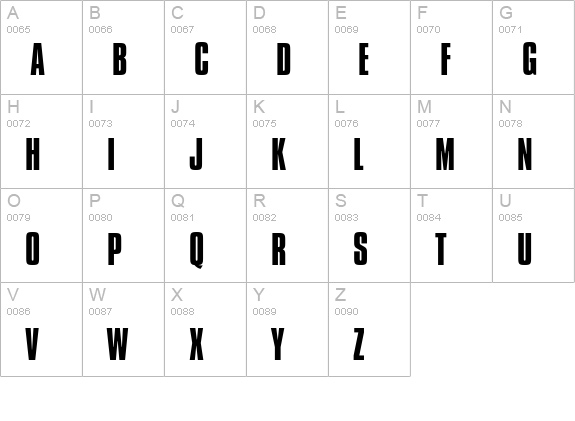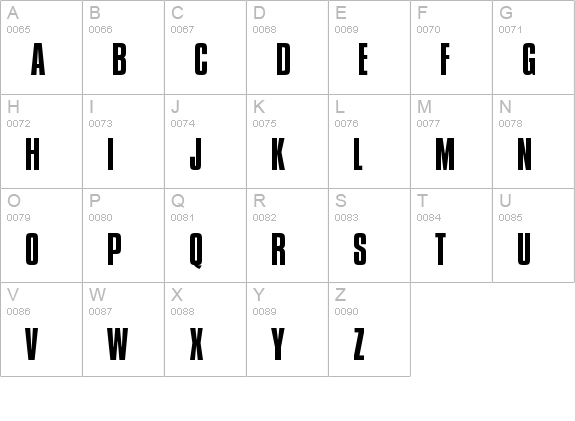
Compacta is a modern and versatile sans-serif font that is perfect for various design projects. Its clean lines and compact design make it ideal for both headlines and body text, ensuring readability and visual appeal. With its sleek and contemporary look, Compacta adds a touch of sophistication to any project. The best part about Compacta font is that it is free to download at FontsMarket.com. This means that you can easily access this high-quality font for all your design needs without any cost. Don't miss out on the opportunity to enhance your designs with the sleek and stylish Compacta font - download it for free today at FontsMarket.com!